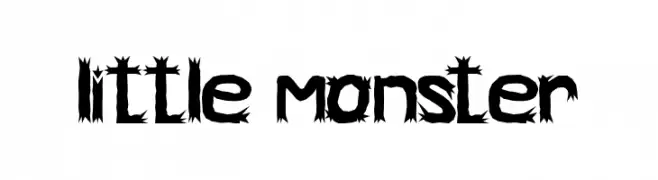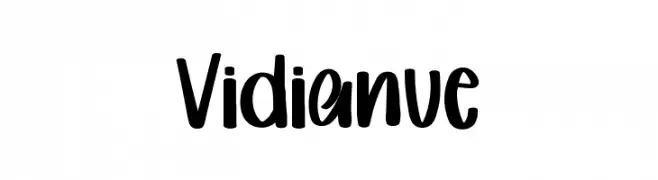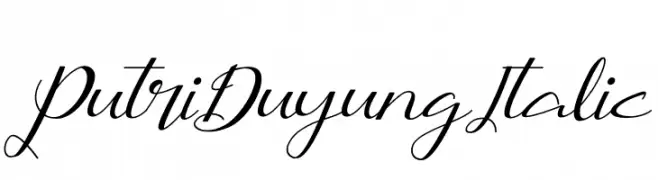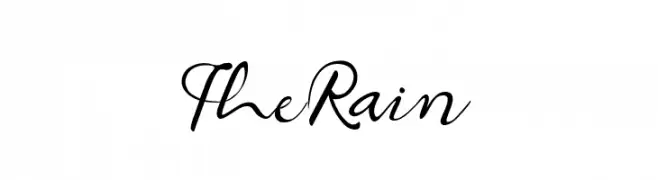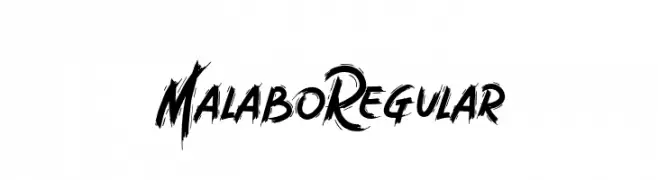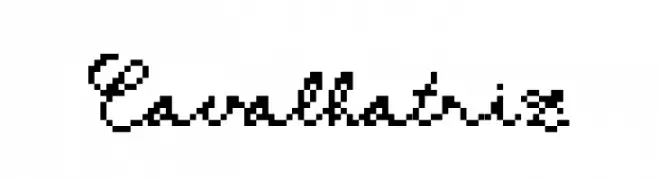
A jagged, edgy font with thorn-like accents, perfect for playful or spooky designs.
A bold, playful handwritten font with thick strokes and an organic feel.
A bold, expanded font with geometric shapes and a modern style.
A bold, blackletter-inspired font with sharp, angular edges and intricate detailing.
A refined and elegant script font with flowing, cursive characters.
A bold, playful handwritten font with smooth curves and close spacing.
An elegant, italicized script font with flowing, cursive letterforms.
An elegant script font with flowing, cursive strokes and a sophisticated style.
A bold, brushstroke-style font with sharp, dynamic edges.
A pixelated cursive font blending digital and handwritten styles.